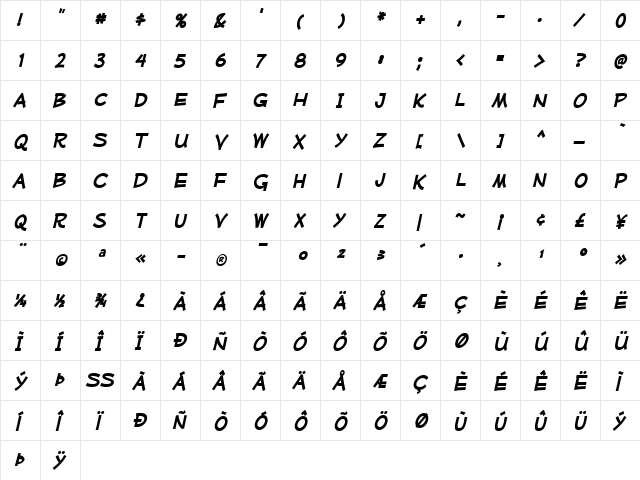
Mufferaw Bold Italic
Design Context for Mufferaw Typeface
Mufferaw is a composed and adaptable typeface that performs quietly and consistently across a wide range of design contexts. The slanted form adds forward momentum and visual energy. Its bold stroke weight gives it real presence on the page.